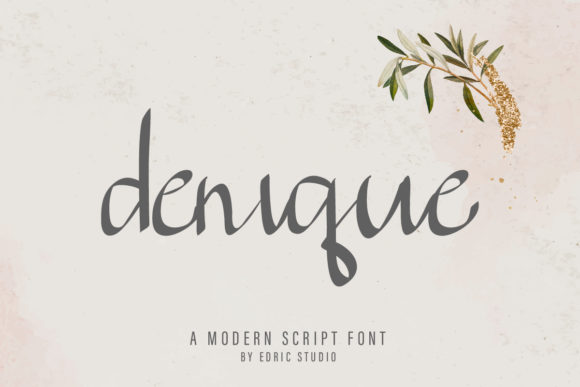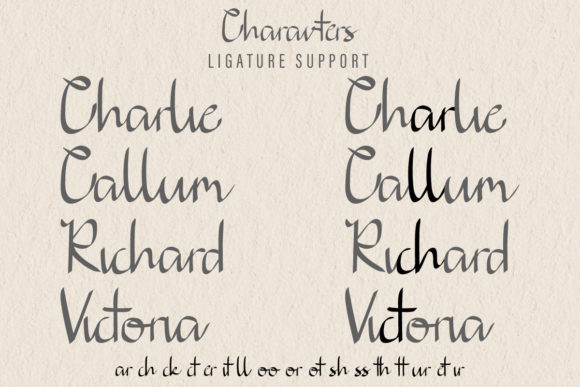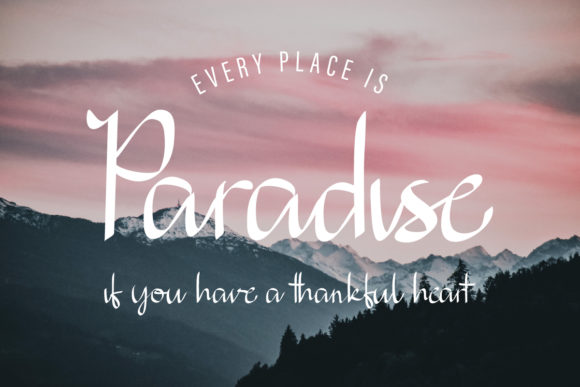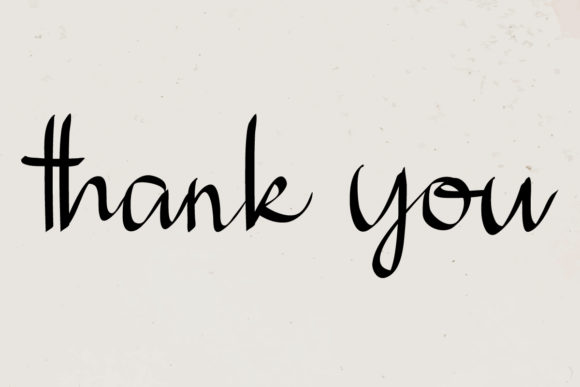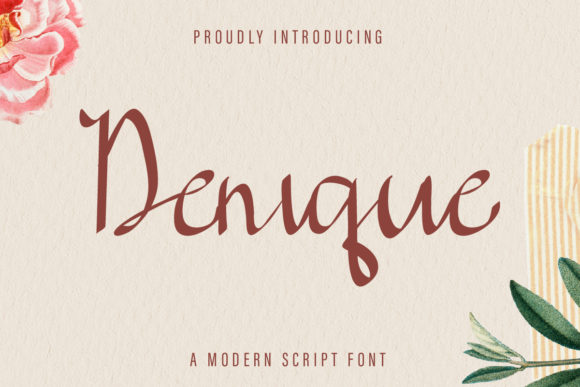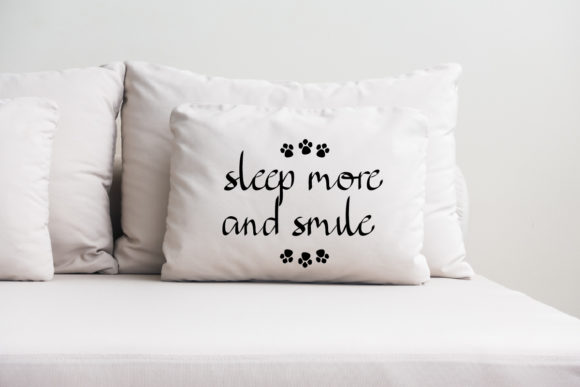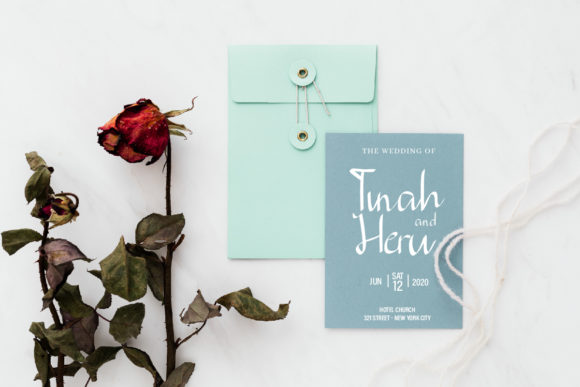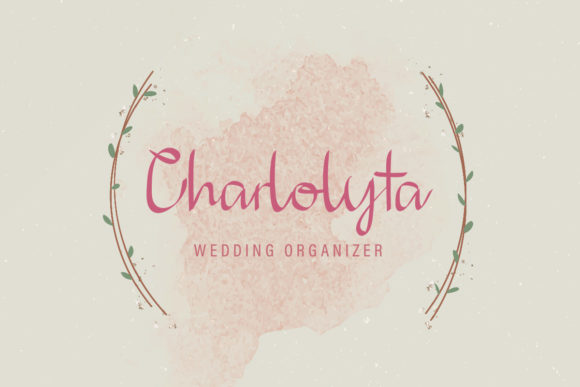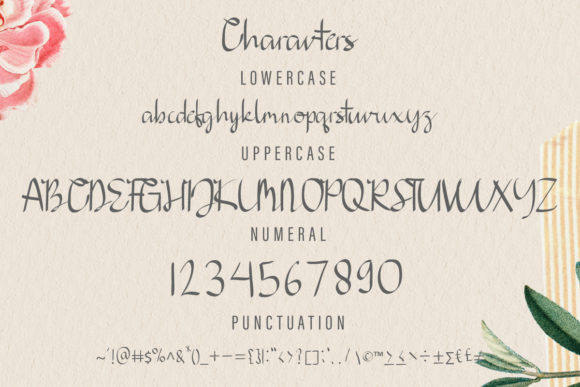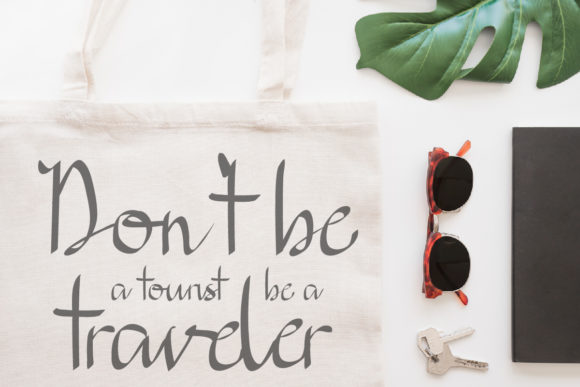
Denique Font
About Denique Font
Denique is a delicate, simple and unique handwritten font. It has beautiful and well balanced characters and as a result, it matches a wide pool of designs. Add it to your most creative ideas and notice how it makes them come alive!